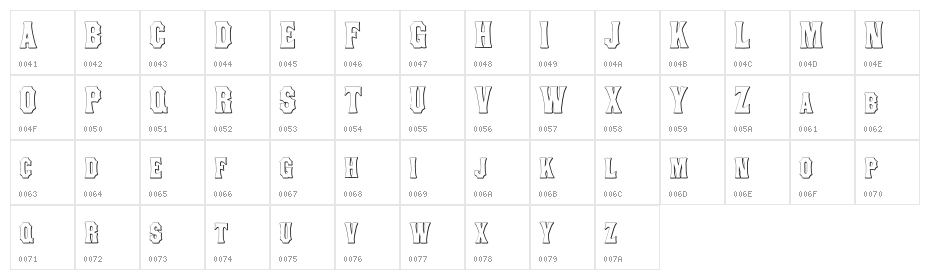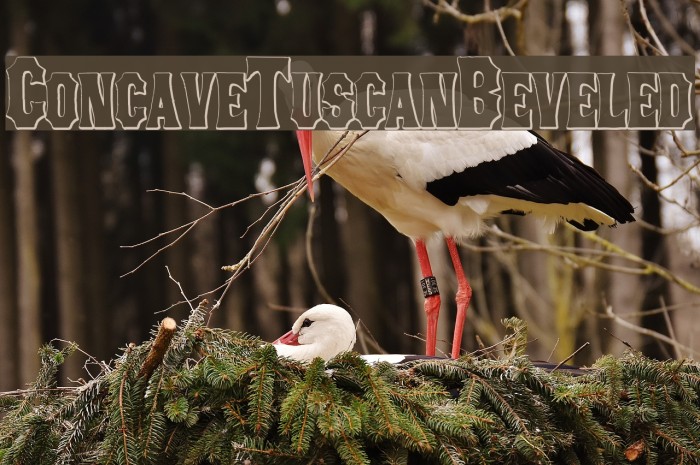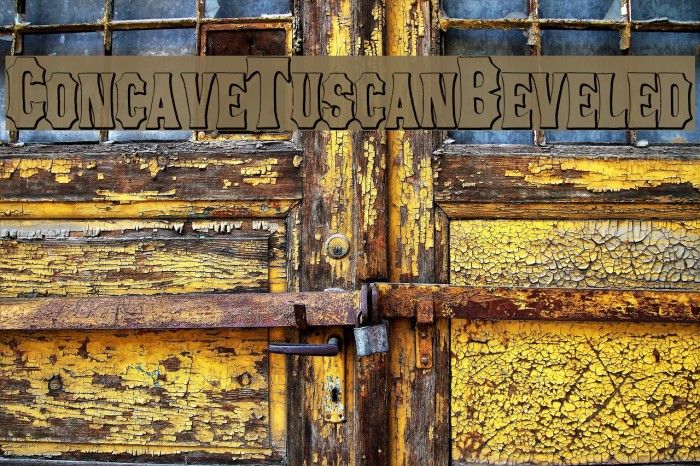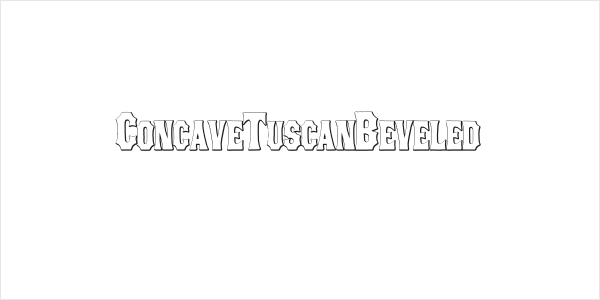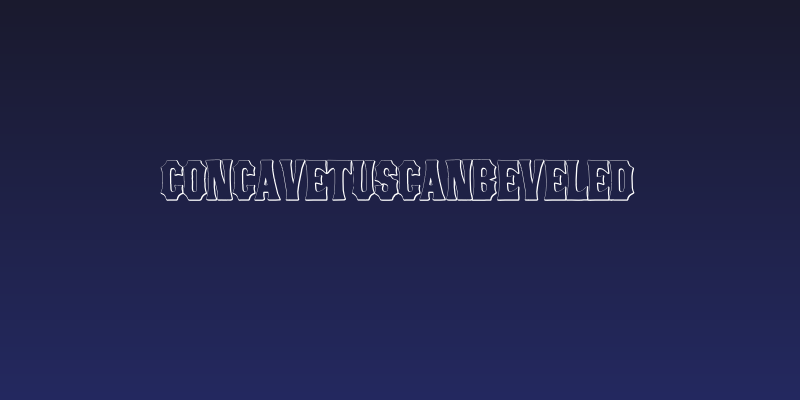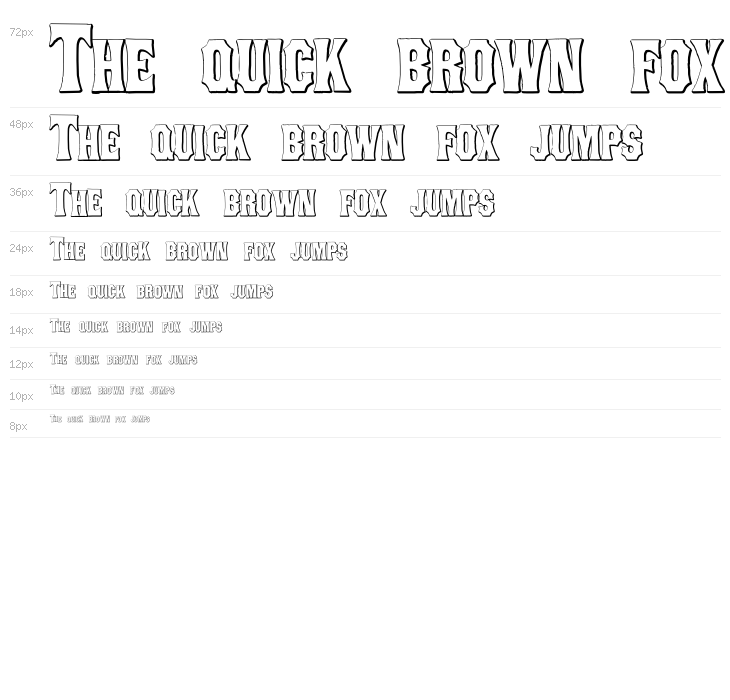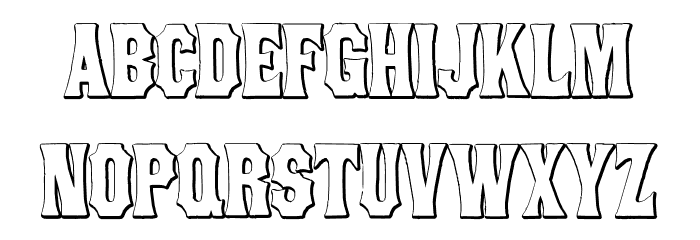
ConcaveTuscanBeveled Font
ConcaveTuscanBeveled Description
This font features a bold and decorative style with a distinct beveled appearance. The letters have a concave shape, giving them a unique three-dimensional effect. The edges are sharp and angular, contributing to a strong and impactful visual presence. The font is highly stylized, making it suitable for attention-grabbing designs. It combines a vintage aesthetic with a modern twist, making it versatile for various creative applications. The uppercase letters are consistent in height, and the overall design is cohesive, ensuring readability despite its decorative nature.
| Overall Style | Vintage, Decorative |
| Proposed Projects | Ideal for poster designs, vintage-themed branding, book covers, and signage. |